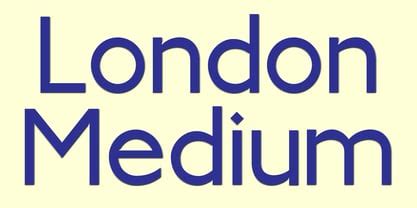
London Medium Font: A Comprehensive Guide
Hey guys! Ever stumbled upon the London Medium font and wondered what the hype is all about? Well, you’re in for a treat! This font, often used for its clean lines and readability, has become a staple in design. I’m going to break down everything you need to know about the London Medium font , from its origins and uses to where you can snag it and how to use it effectively. Let’s dive in and unravel the mysteries of this awesome font!
Unveiling the London Medium Font: What’s the Deal?
So, what exactly is the London Medium font ? At its core, it’s a typeface known for its versatility and modern aesthetic. It’s a member of the broader London font family, but the “Medium” variant strikes a perfect balance. It’s not too bold, not too light – it’s just right! This makes it incredibly suitable for a wide array of applications, from website design and branding materials to print documents and everything in between. The London Medium font is typically characterized by its slightly condensed appearance, which lends itself to a sense of sophistication and efficiency. The letterforms are generally clean, with well-defined serifs (or lack thereof), making them very legible even at smaller sizes. This is a crucial factor, especially when it comes to user experience in digital platforms, because it ensures that your message is conveyed clearly and without visual strain. The font’s neutral design also means it pairs well with other fonts, making it a valuable asset in your font library. You can easily create a professional look by combining the London Medium font with a contrasting font for headlines or emphasis. Its ability to blend seamlessly into various design contexts makes it an excellent choice for businesses and individuals aiming for a polished and modern look. The font can also be easily adapted to different design styles. Want a minimalist website? The London Medium font can pull it off. Need something a bit more corporate? Yup, it’s got that covered, too. And this is why it is used everywhere. This flexibility is a significant reason for its widespread appeal. The font’s adaptability to various platforms makes it a true workhorse in the design world.
The Historical Roots and Design Characteristics
Let’s delve a little deeper into the background of the London Medium font . While the exact origins may vary depending on the specific source, the London font family itself draws inspiration from the classic fonts that have graced the city’s signage and various public displays. The designers behind the London Medium font aimed to create a typeface that would embody the spirit of the modern era – simple, functional, and visually appealing. This font family often shares characteristics with other popular sans-serif typefaces, like Helvetica or Arial, but often with its own distinct flair. The design features typically include consistent stroke weights, well-defined letter shapes, and a high degree of legibility. Such features ensure that the text is easy to read. This is particularly important for longer texts and detailed information. The clean lines and uncomplicated forms of the London Medium font reflect a design philosophy that prioritizes clarity and efficiency. The subtle details in the font are often carefully considered to enhance its overall aesthetic and functionality. For example, the spacing between letters might be meticulously adjusted to improve readability, or the curves and angles might be refined to create a more balanced appearance. The design characteristics also make it highly adaptable. Because of the variety of weights available, the London Medium font can be used for everything from headlines to body text. This versatility is one of the key reasons why it has become such a go-to font for designers.
Maximizing the Impact: Using the London Medium Font Effectively
Okay, so you’ve got the London Medium font . Now, how do you use it like a pro? The key is to use it strategically to enhance your design. Here’s how to make the most of it.
Best Practices for Design Applications
The London Medium font is versatile, but that doesn’t mean it’s a one-size-fits-all solution. Consider the context of your design and choose the font weight and style accordingly. For headlines and titles, use the Medium or Bold weights to grab attention. For body text, stick to the Medium or Regular weight for optimal readability. Avoid using too many different font styles in one design. This can make your design look cluttered and unprofessional. Stick to a consistent typographic hierarchy using various weights and sizes to emphasize important elements. Pair the London Medium font with a complementary font for added visual interest. Look for fonts that share similar design characteristics but offer a different feel. Choose a font with the same x-height or the same character width. This will establish a cohesive design system. Think about spacing, both between lines and characters. Ensure there’s enough space between lines of text to prevent them from feeling cramped. The space between characters can also affect readability. Adjust the kerning (the space between specific letter pairs) to improve the overall flow of your text. Always review your design at different sizes to ensure the font remains legible. A font that looks great at a large size might be hard to read at a smaller size. Make sure you proofread your work. Typos and errors can significantly detract from your design. Make sure you have the perfect blend of style and substance.
Practical Examples and Design Scenarios
Let’s look at some real-world examples. Imagine you’re designing a website for a tech startup. You could use the London Medium font for the website’s headlines and navigation menus. Then, use a slightly lighter, complementary font for the body text. This creates a clean, modern look that’s perfect for tech. For branding materials, like business cards or brochures, the London Medium font is a solid choice. In this case, use it for the company name, headings, and contact information. Make sure the font is legible. If you’re working on a poster or advertisement, the London Medium font can be used to capture the viewer’s attention. Experiment with different sizes and weights to create a hierarchy of information. In social media graphics, the font can enhance any image you create. Just keep in mind that short, clear text is often more effective on social media. If you are designing for print, make sure to consider factors like ink type and paper quality to ensure optimal readability. With each project, try to consider the target audience and design accordingly. A font that works well for a younger audience might not be suitable for an older one. Ultimately, the best way to become proficient with the London Medium font is by experimenting with it. Take on different projects, and try out different combinations. Over time, you’ll develop a better feel for how to make the most of this versatile font.
Conclusion: Embrace the London Medium Font!
So there you have it, guys! The London Medium font is a fantastic choice for any project that needs a clean, modern, and readable typeface. Whether you’re a seasoned designer or a total newbie, the London Medium font can elevate your designs. Remember to download it, install it, and experiment with its various weights and styles. Keep in mind licensing, installation, and design techniques. With a little practice, you’ll be creating eye-catching designs in no time. Thanks for reading, and happy designing! I hope this article has helped you. Use the London Medium font and watch your designs shine! Happy designing, and keep creating beautiful things! Remember to have fun with it! Keep experimenting with different combinations.